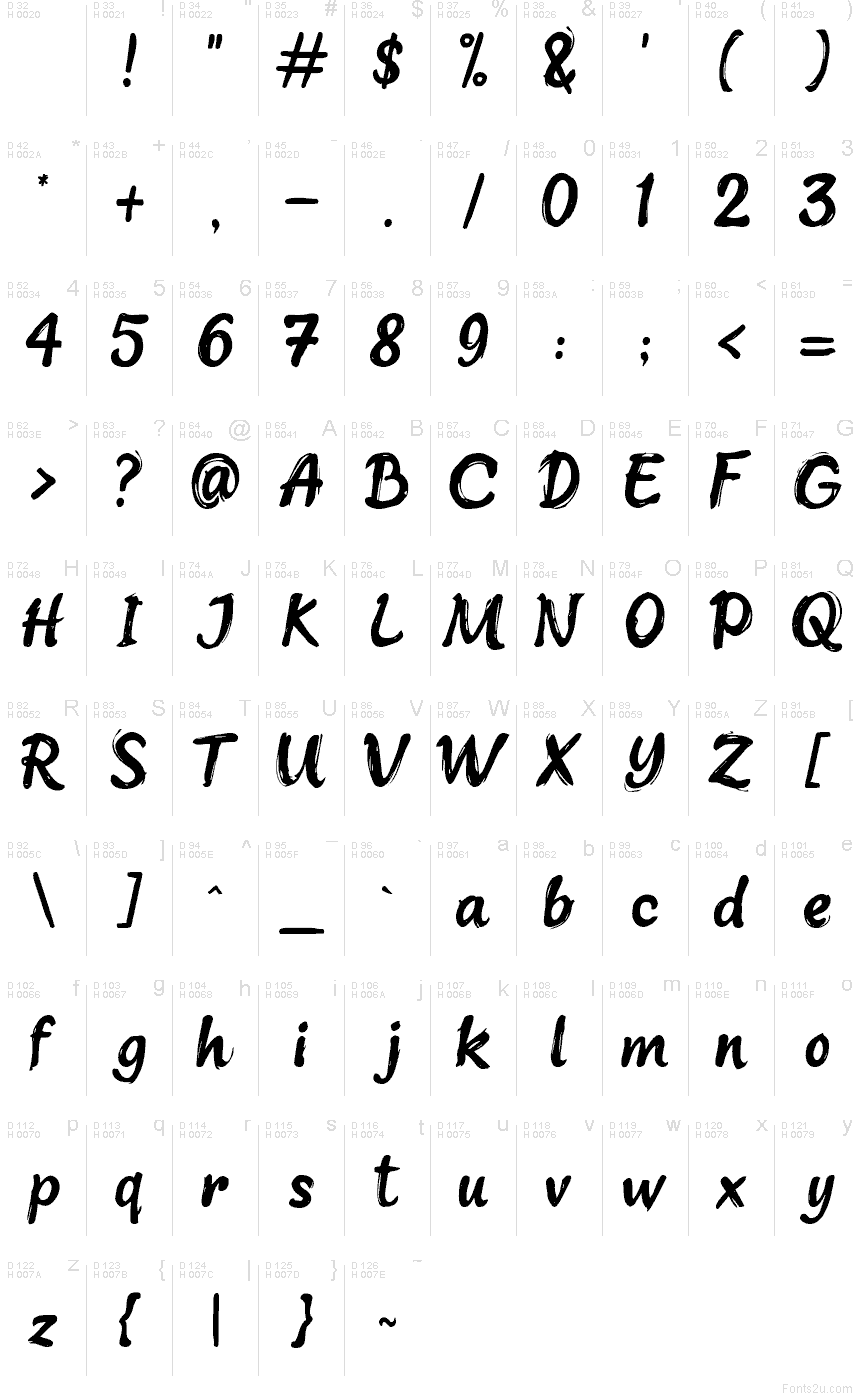
La Matinale
La Matinale font by BlackFridayFont is a free brush script typeface with the feel of fresh ink pulled across paper in quick, confident strokes. Its letters sway gently on a loose baseline, with bold, inky textures that suggest a handwritten note dashed off in the early hours. The rhythm is lively but still legible, giving you that café-chalkboard charm without slipping into chaos.
Using La Matinale, you can bring warmth and movement to coffee shop branding, bakery packaging, lifestyle logos, social media graphics, product labels, and event invitations. This free font shines at larger sizes where its textured strokes can really breathe; pair it with a clean sans serif for body text to keep layouts grounded and easy to read.